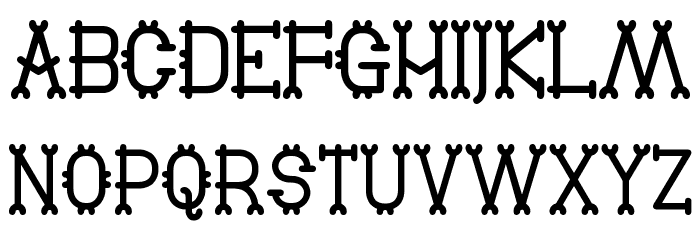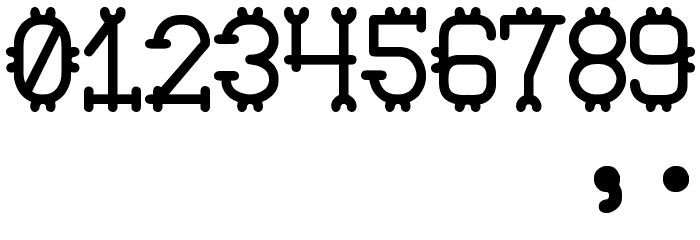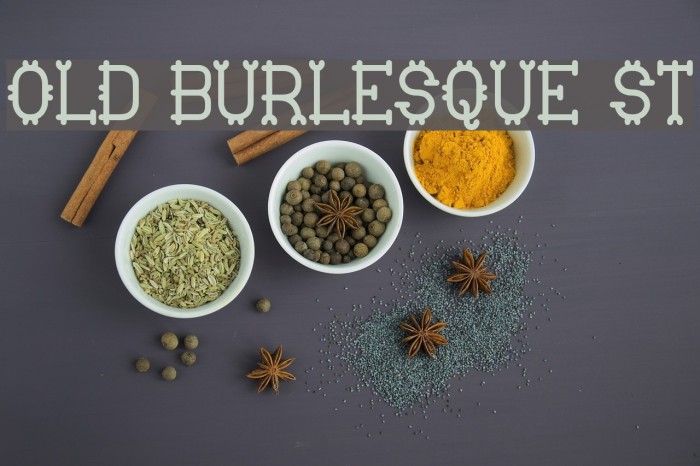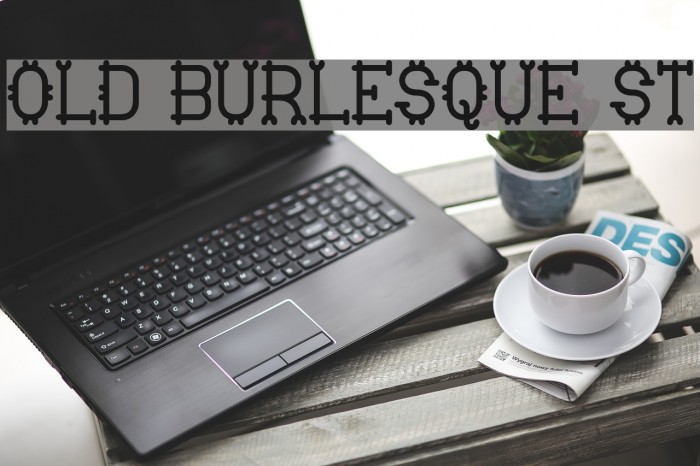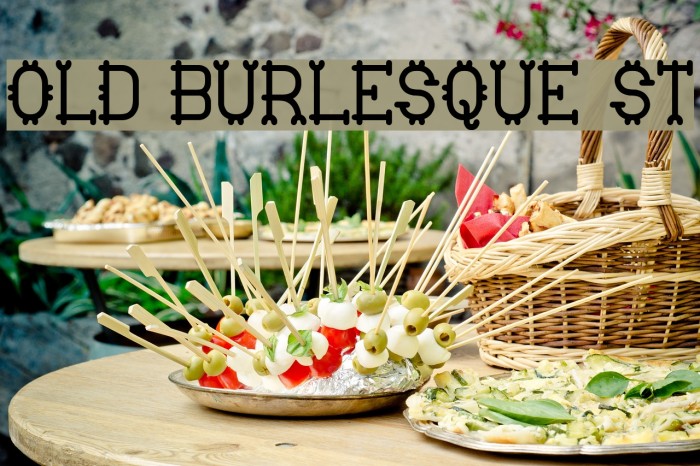
Old Burlesque St Font
This font features a unique and decorative style that draws inspiration from vintage burlesque aesthetics. The characters are adorned with small, circular embellishments at the ends of each stroke, giving them a playful and theatrical appearance. The uppercase and lowercase letters maintain a consistent design, with bold, rounded forms that are both eye-catching and legible. Numbers and special characters follow the same decorative theme, ensuring a cohesive look across all glyphs. This font is ideal for projects that require a touch of whimsy and nostalgia, such as posters, invitations, or branding for entertainment venues.
A decorative font with vintage burlesque flair, featuring circular embellishments on each character.
- Proposed Projects: Ideal for posters, invitations, and branding for entertainment venues or themed events.
- Overall Style: Vintage